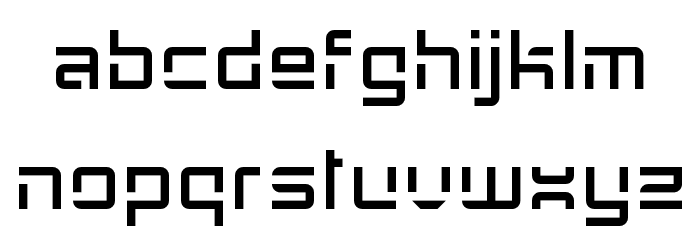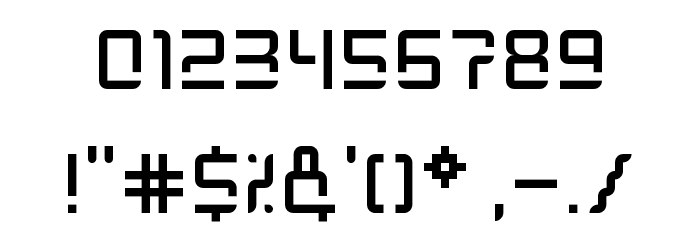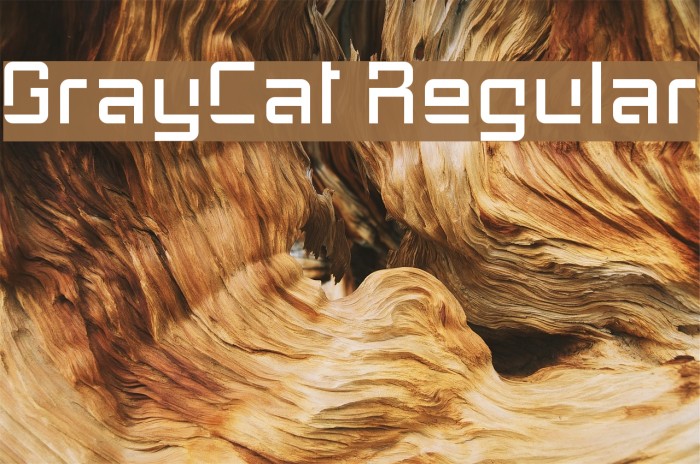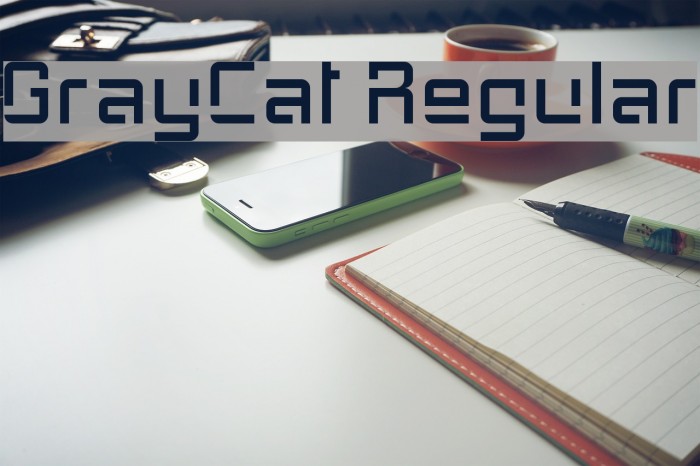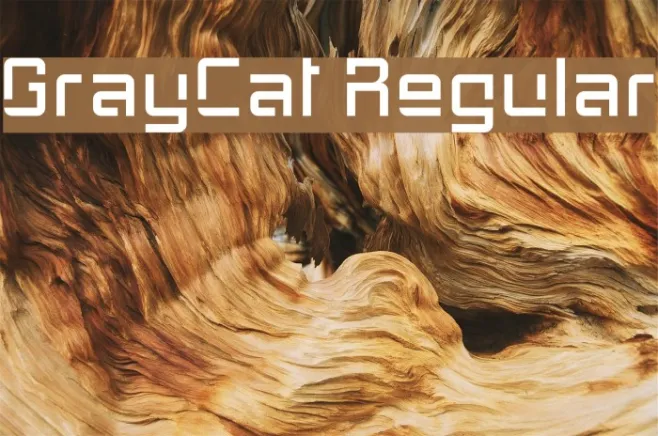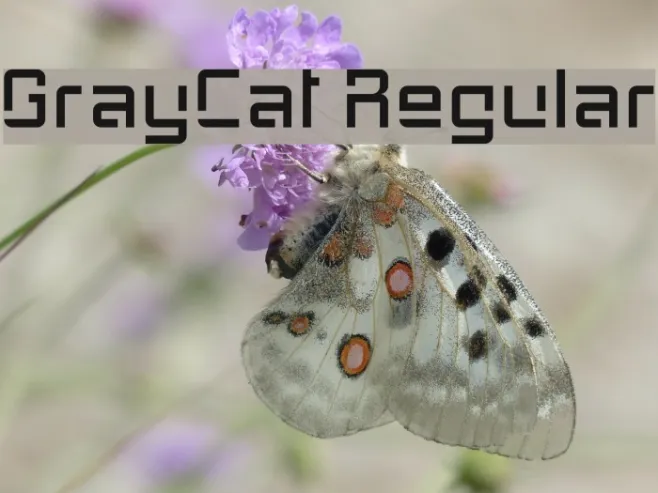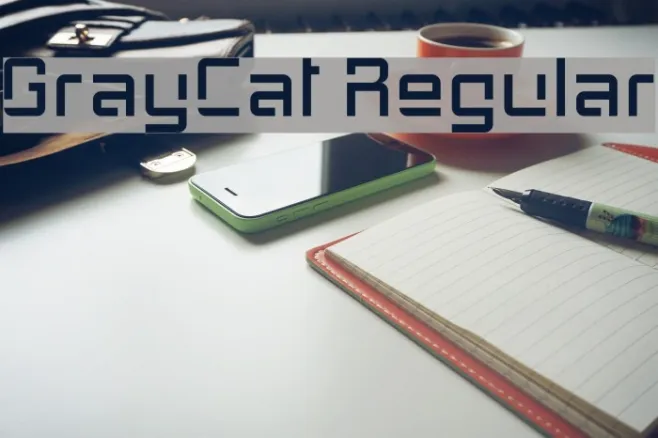
GrayCat Regular Font
This font exhibits a modern and futuristic design with a geometric structure. The characters are composed of straight lines and sharp angles, giving it a digital and tech-inspired appearance. The uppercase and lowercase letters maintain a consistent height, contributing to a uniform look. The numerals and special characters follow the same design principles, ensuring cohesion across all glyphs. The font's style is minimalistic yet bold, making it suitable for projects that require a contemporary and clean aesthetic.
A modern, geometric font with a digital and tech-inspired design.
- Proposed Projects: Ideal for technology branding, digital interfaces, video game graphics, and modern advertising.
- Use Case: Headlines, Logos, Digital interfaces